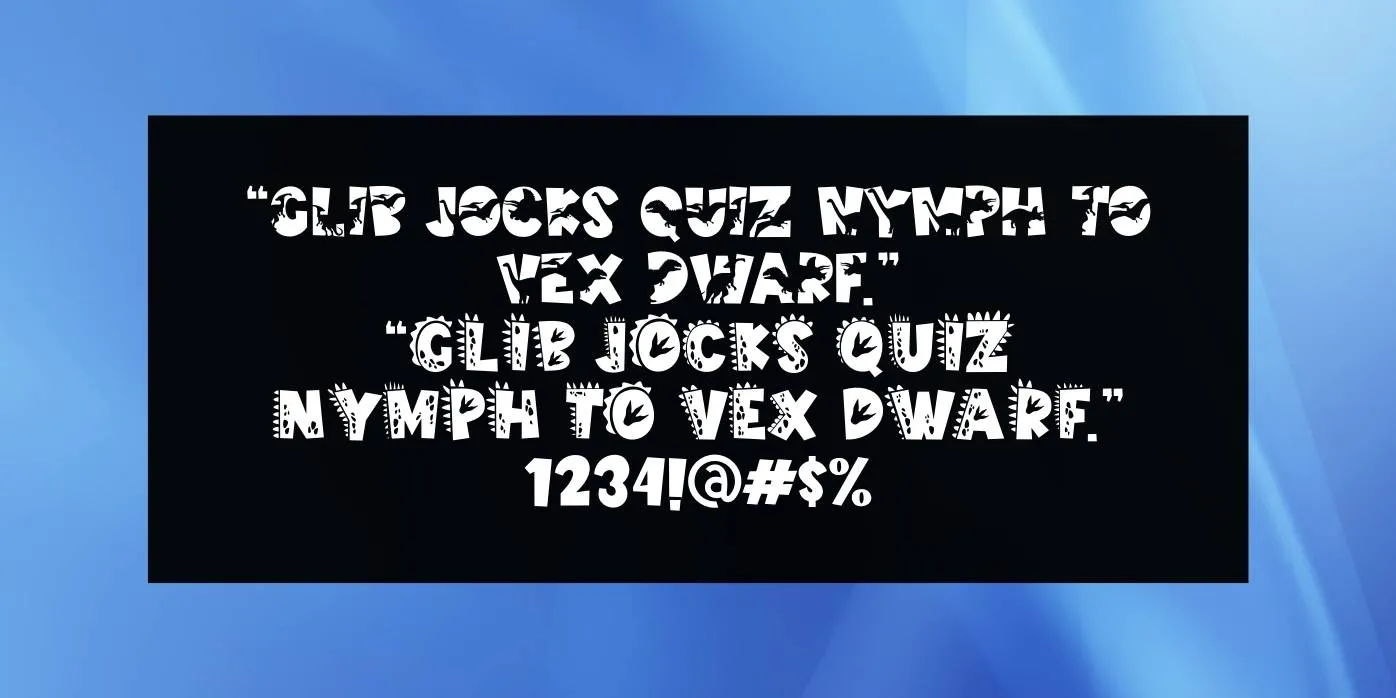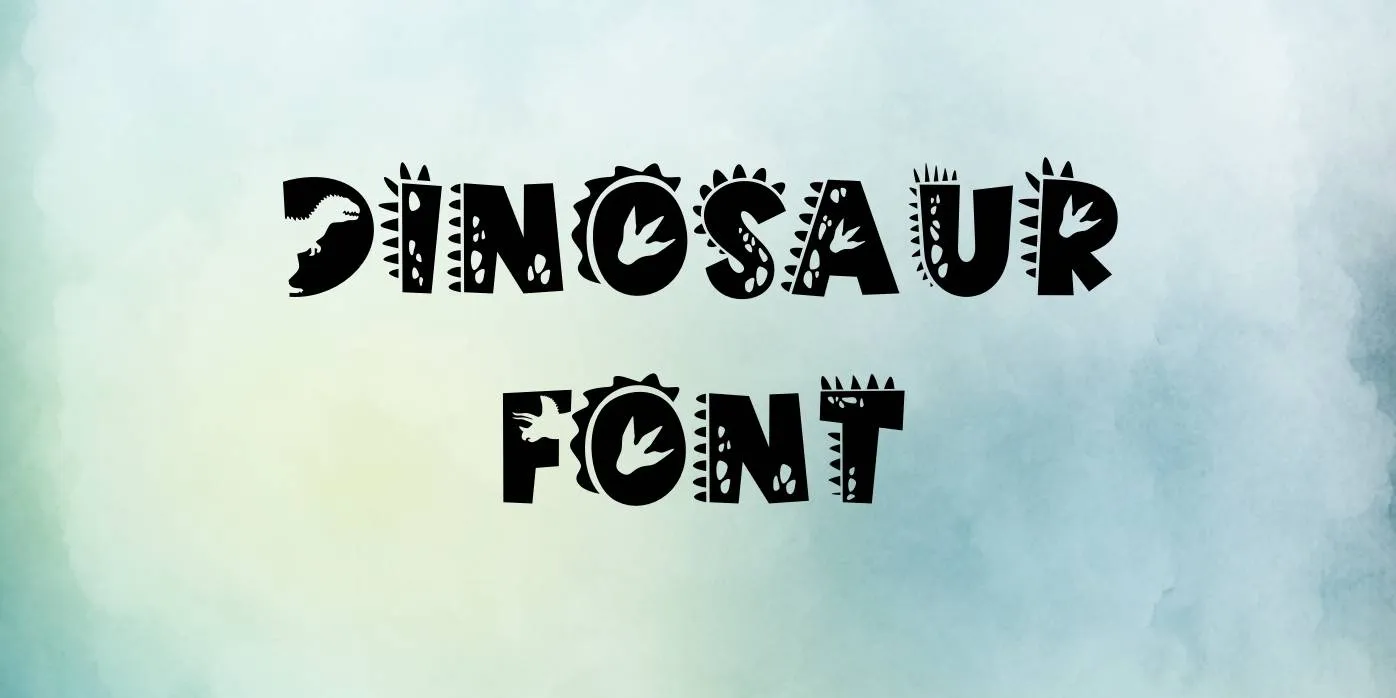
Dinosaur Font
Here we are going to discuss a very unique and funny font named Dinosaur Font. You can feel by its name that this must be a very lovable and cute font. Dinosaur Font is designed by Burhan Afif a digital designer based in Egypt. He has been making these types of fonts since 2017.
This font is very unique and decorative. The dinosaur has always been an inspiration for video games and movies as many movies, cartoons, and games are featured on them. One of the famous movies related to Dinosaur is Jurassic Park. This typeface is only available in capital letters which makes it a very versatile font with the element of bold letters.
This font has elements like capital letters, numbers, special characters, etc. On each alphabet in this font dinosaur is printed which makes it looks so much more attractive, especially for kids. This font support file type TTF (TrueType Font) OTF (OpenType Font) and WOFF (Web OpenType Font Format) so It can be used for many projects.